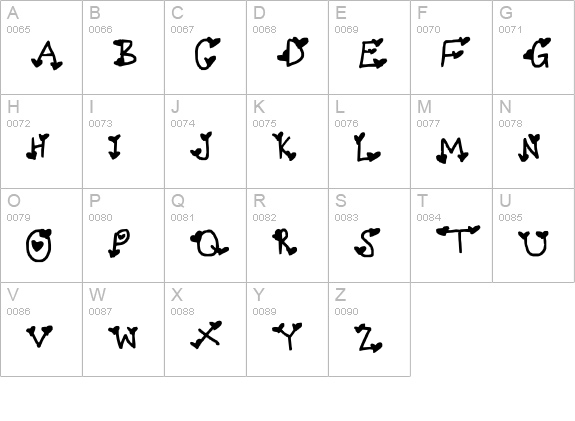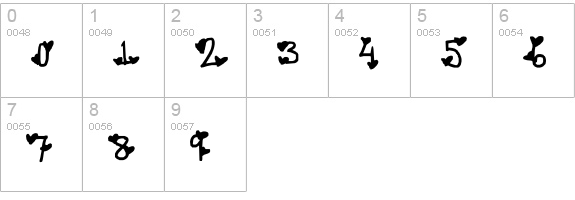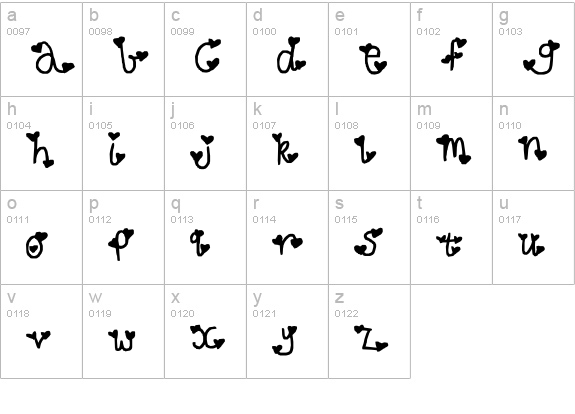
be my valentine Font Details
Be My Valentine Font is a stunning typeface that will make your heart skip a beat. With its elegant and romantic design, this font is perfect for adding a touch of love to any project. Whether you're creating a heartfelt greeting card, designing a beautiful wedding invitation, or simply expressing your affection in a creative way, Be My Valentine Font is the ideal choice. This font features exquisite letterforms that are delicately crafted with intricate details, giving each character a graceful and sophisticated appearance. The smooth curves and flowing lines bring a sense of romance and charm to every word you spell. With its timeless beauty, Be My Valentine Font effortlessly captures the essence of love and tenderness. One of the best things about Be My Valentine Font is that it is completely free. Yes, you read that right - this amazing font is freely available to download at FontsMarket.com. Now you can add a touch of romance to your designs without breaking the bank. Whether you're a professional designer or a DIY enthusiast, this font is a valuable asset that will enhance your creativity. With Be My Valentine Font, you have the freedom to express your love and affection in a visually captivating way. Its versatility allows it to be used in a myriad of design projects, from Valentine's Day cards to wedding stationery, from love-themed art prints to romantic social media posts. The possibilities are endless, and the results are always breathtaking. So, why wait? Download Be My Valentine Font today from FontsMarket.com and let your creativity soar. Spread the love and make every design a heartfelt expression of affection. With this free font in your arsenal, you'll be able to create stunning visuals that will make hearts flutter and leave a lasting impression. Get ready to fall in love with Be My Valentine Font and let your designs speak volumes of love.